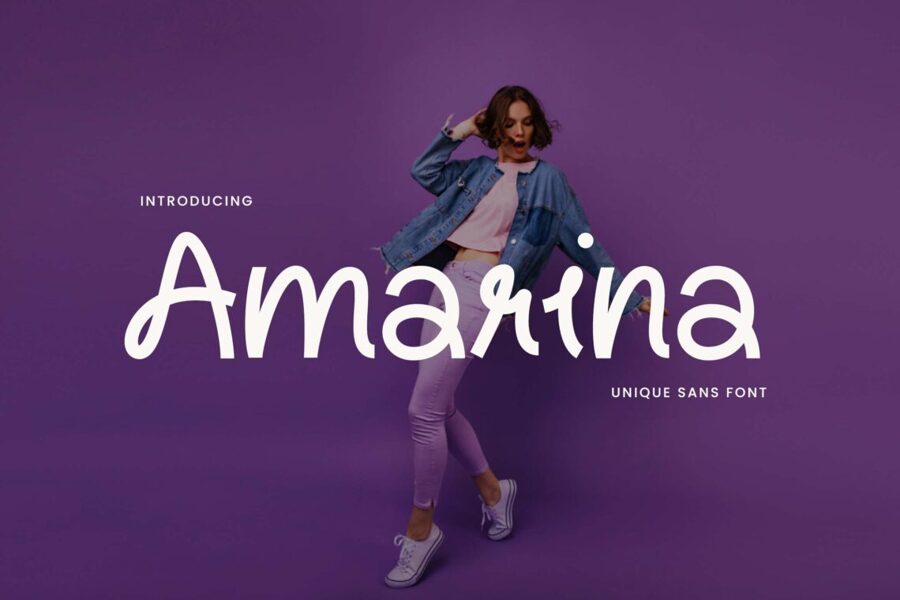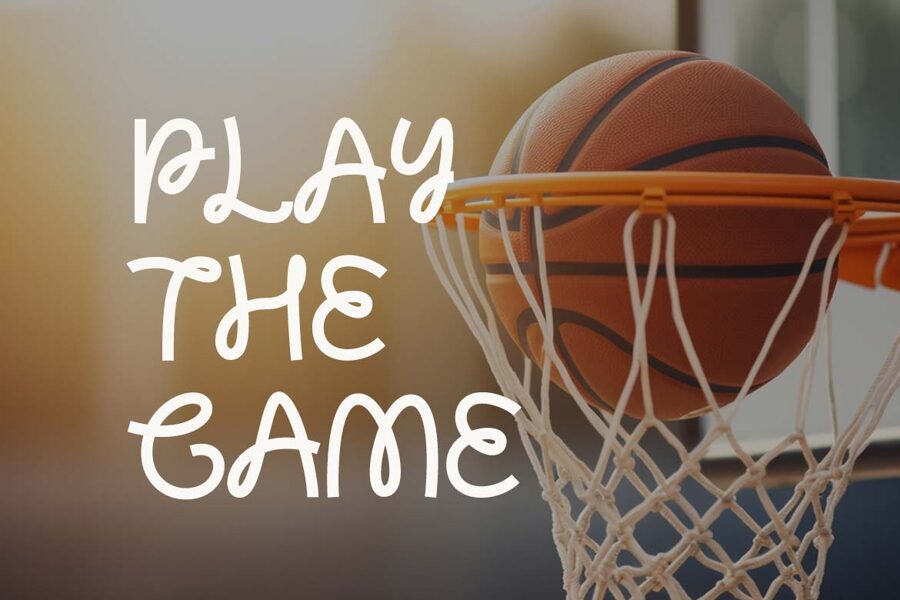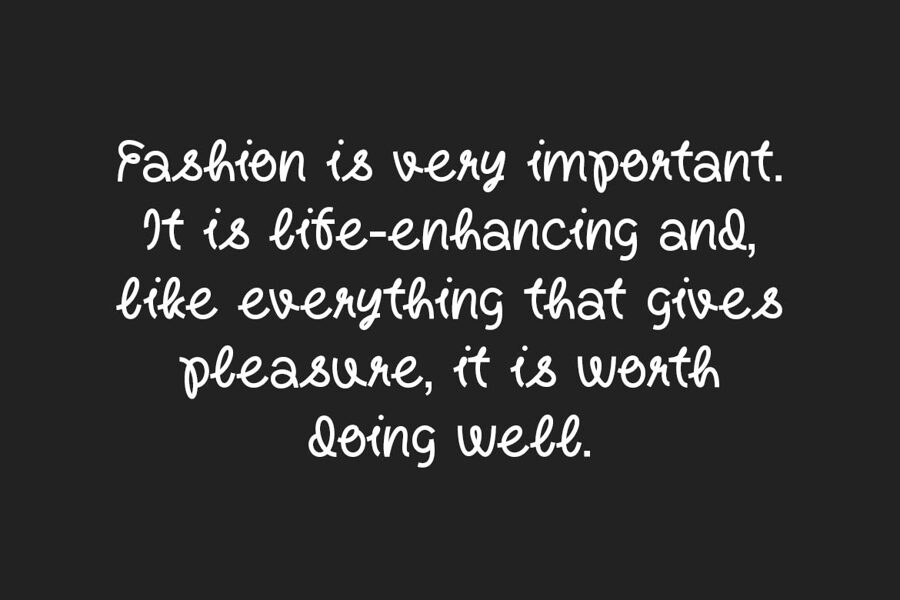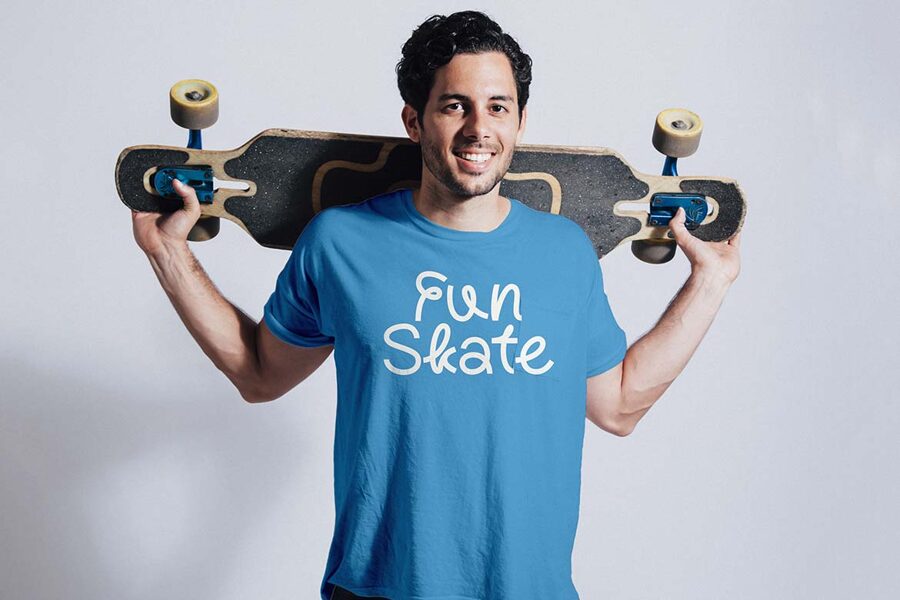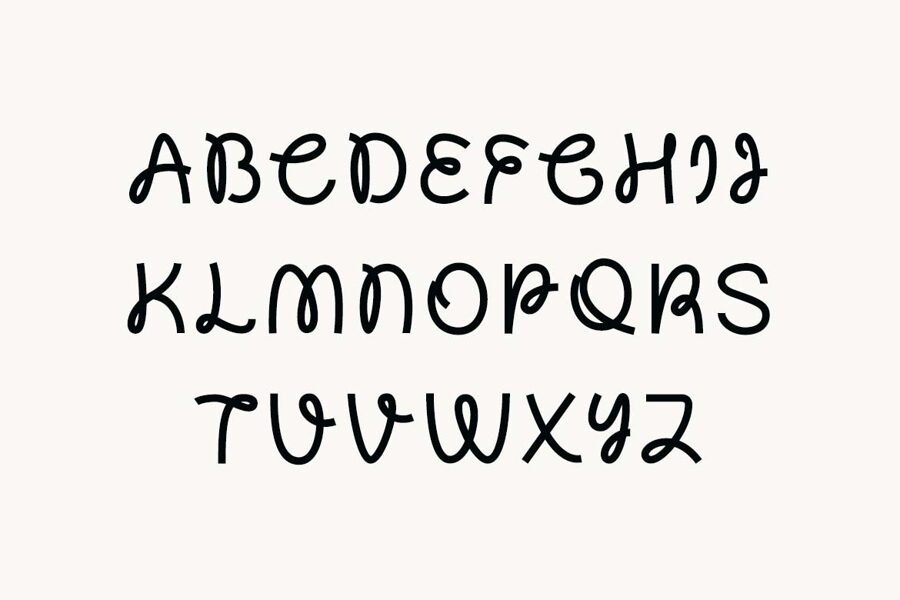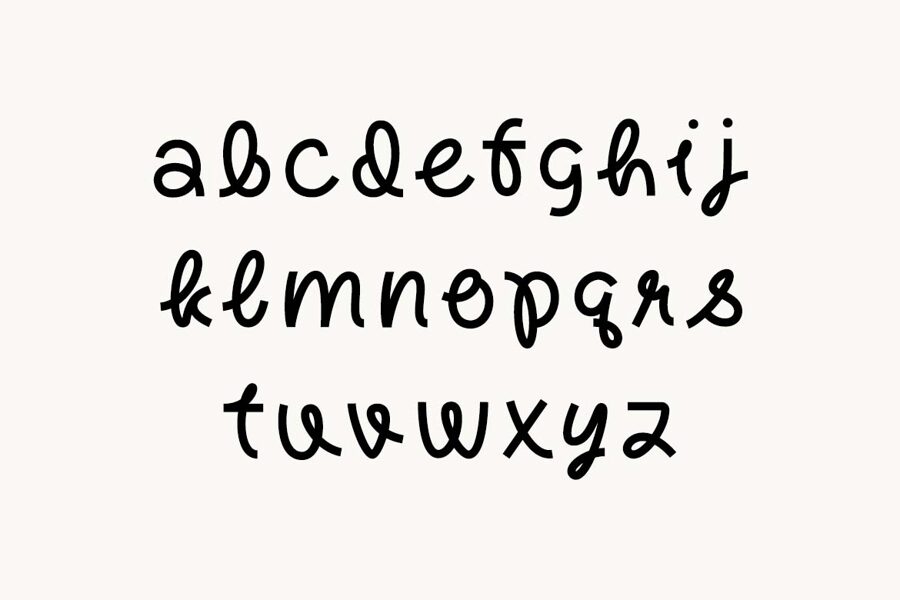
Amarina is a playful script display font with a bold, distinctive personality. Its cute logotype-inspired letterforms bring energy and originality to logos, posters, packaging, movie titles, fashion graphics, and children’s designs.
Amarina offers plenty of creative possibilities for eye-catching headlines and memorable branding. Its fun yet stylish appearance works especially well in projects that need a cheerful, modern, and unique visual identity.